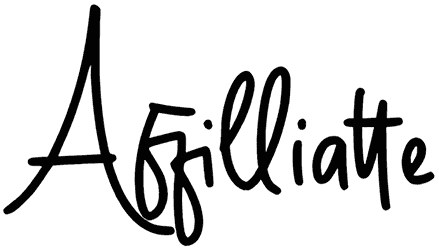
Well, meet up with an intimate and also urban starting in a warm and sociable format of the Affilliatte font, which is exciting to polish up your expression of branding, street painting, or product packaging in a while.
This handwritten font works amazingly for fitting the bill in all kinds of graphics despite its illegible face. Blessing to our website, this script font with an urban look runs across as a terrific event to bring affection, creativity, and community.